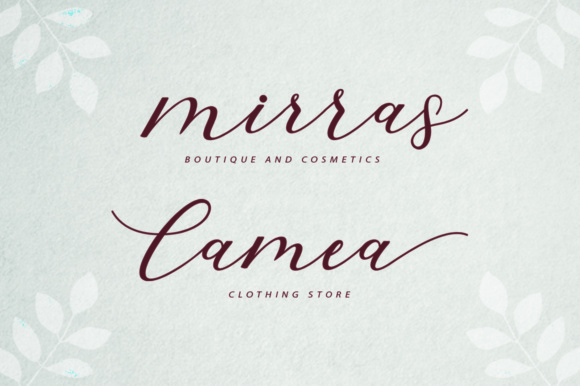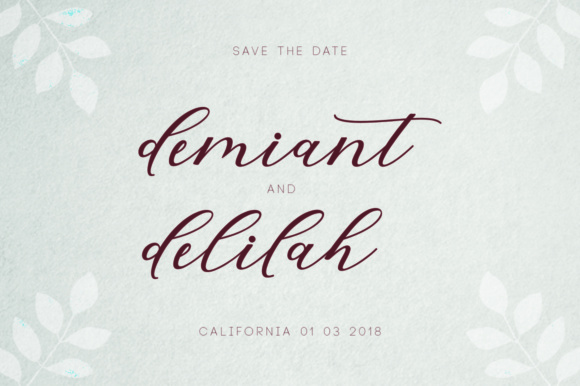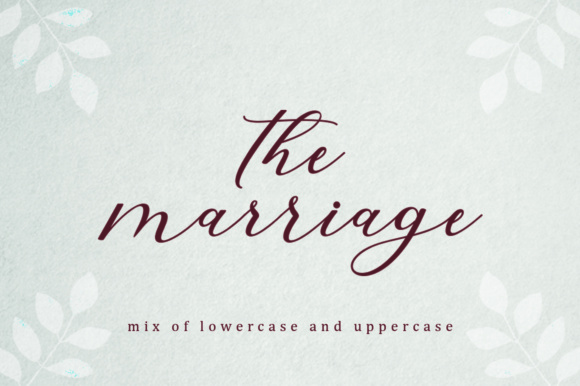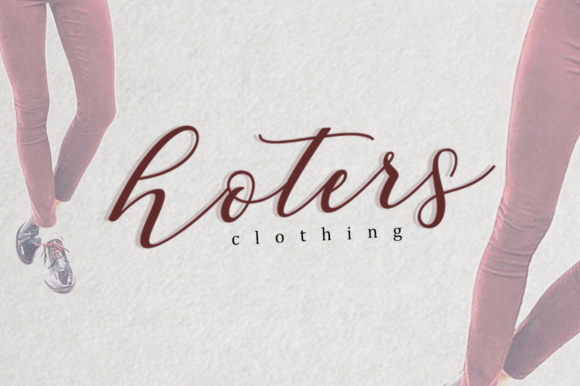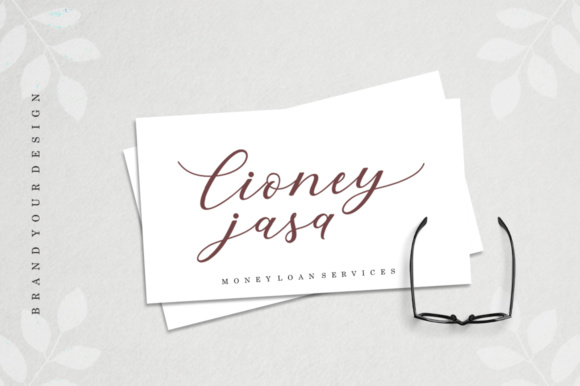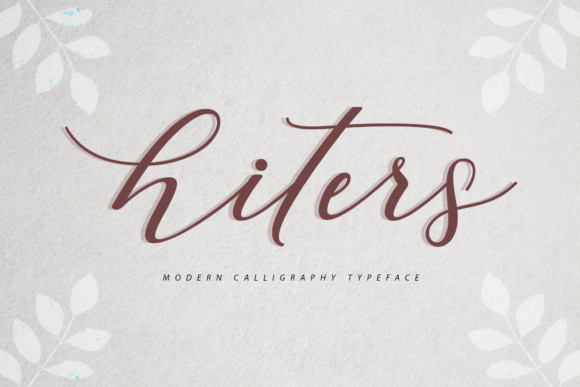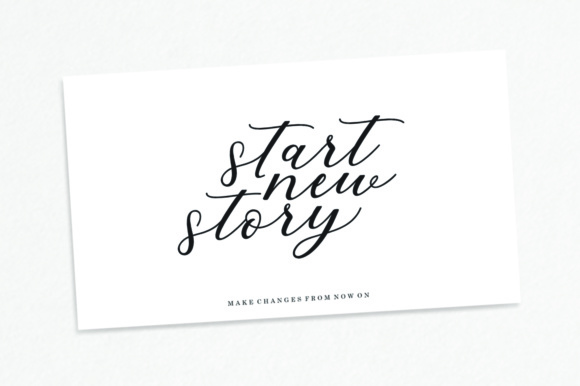
Hiters
About Hiters Font
Hiters is a gorgeous script font, crafted in a reliable calligraphy style that exudes elegance. This font works well in print work, and will give your designs a luxurious vibe.